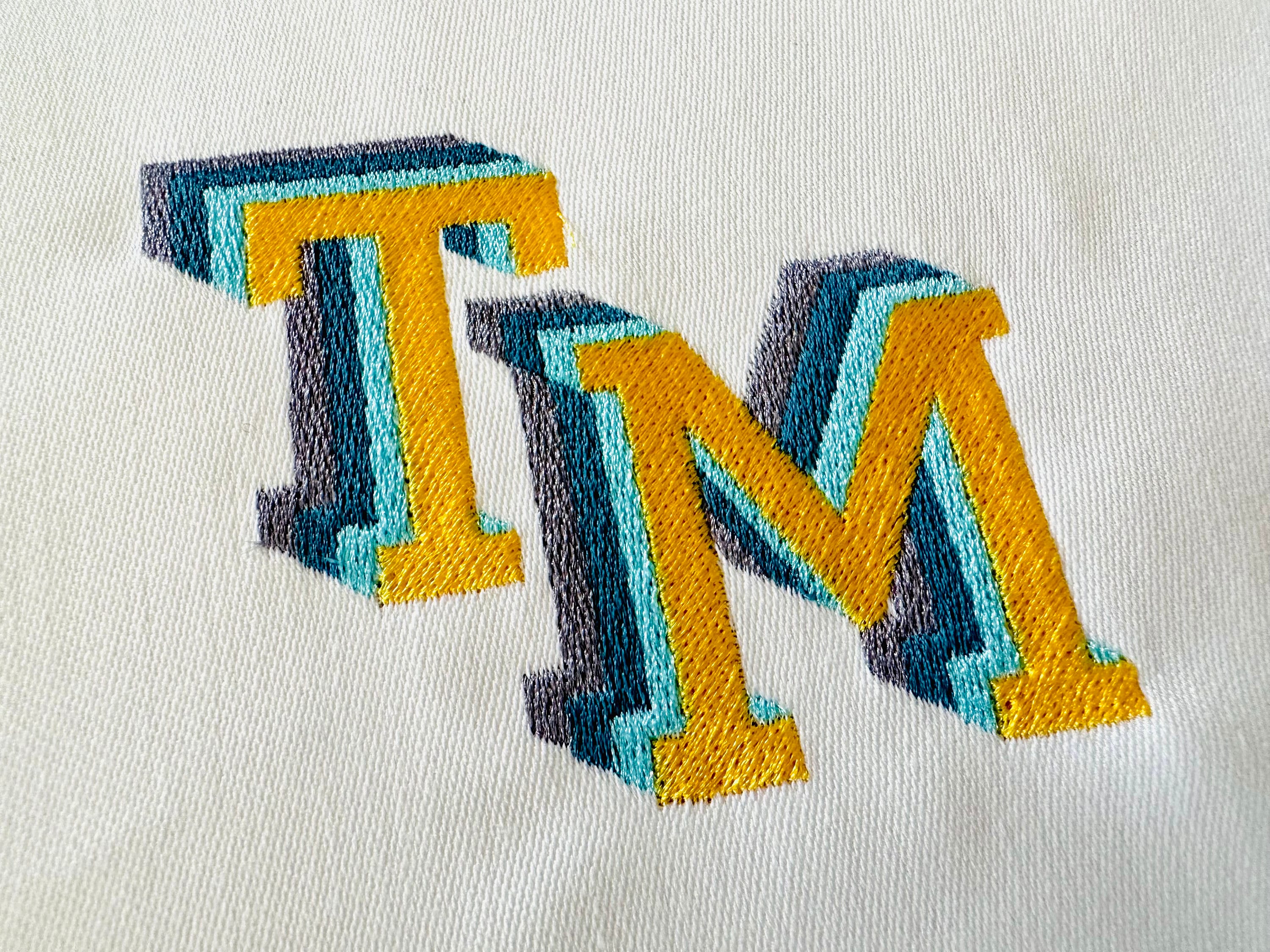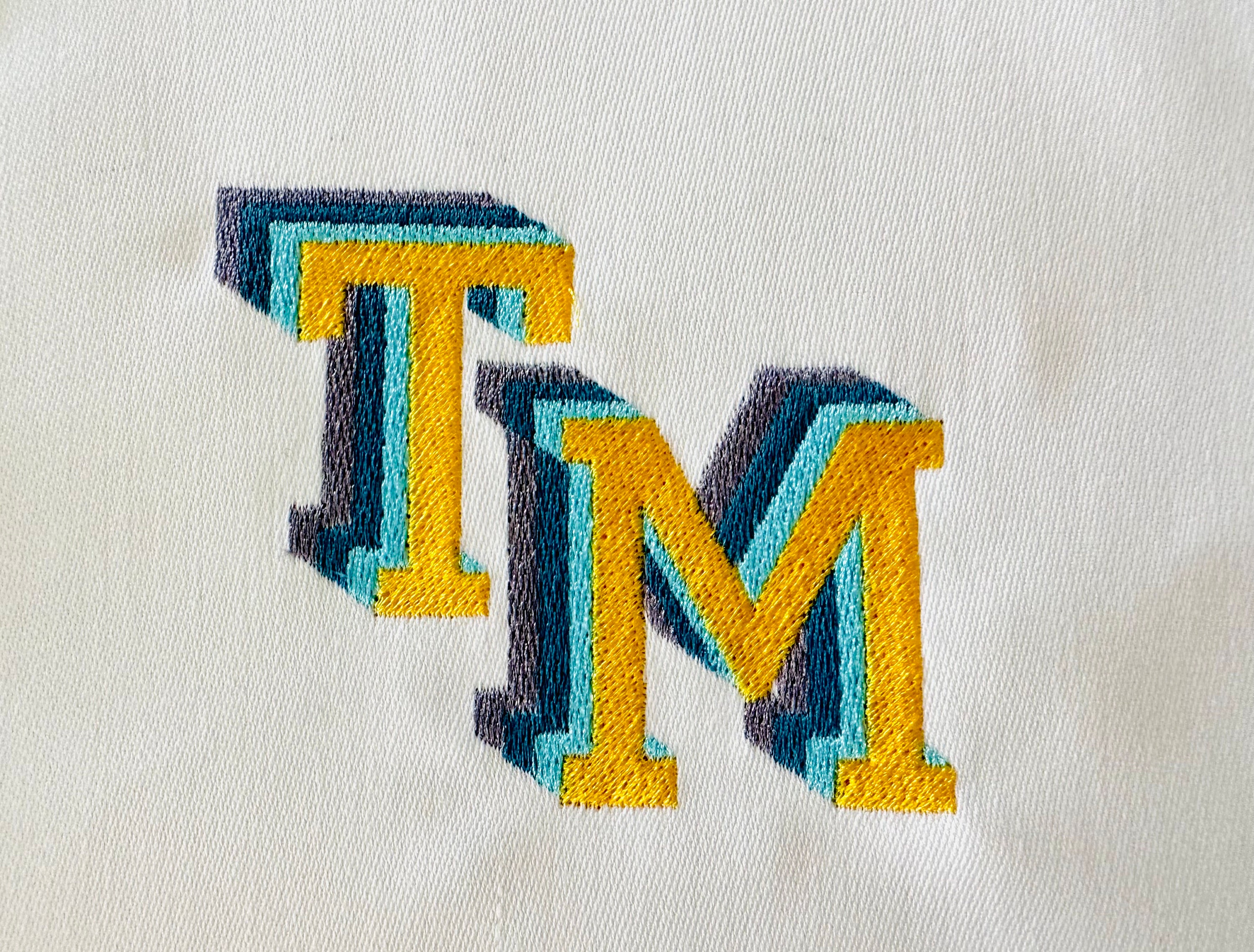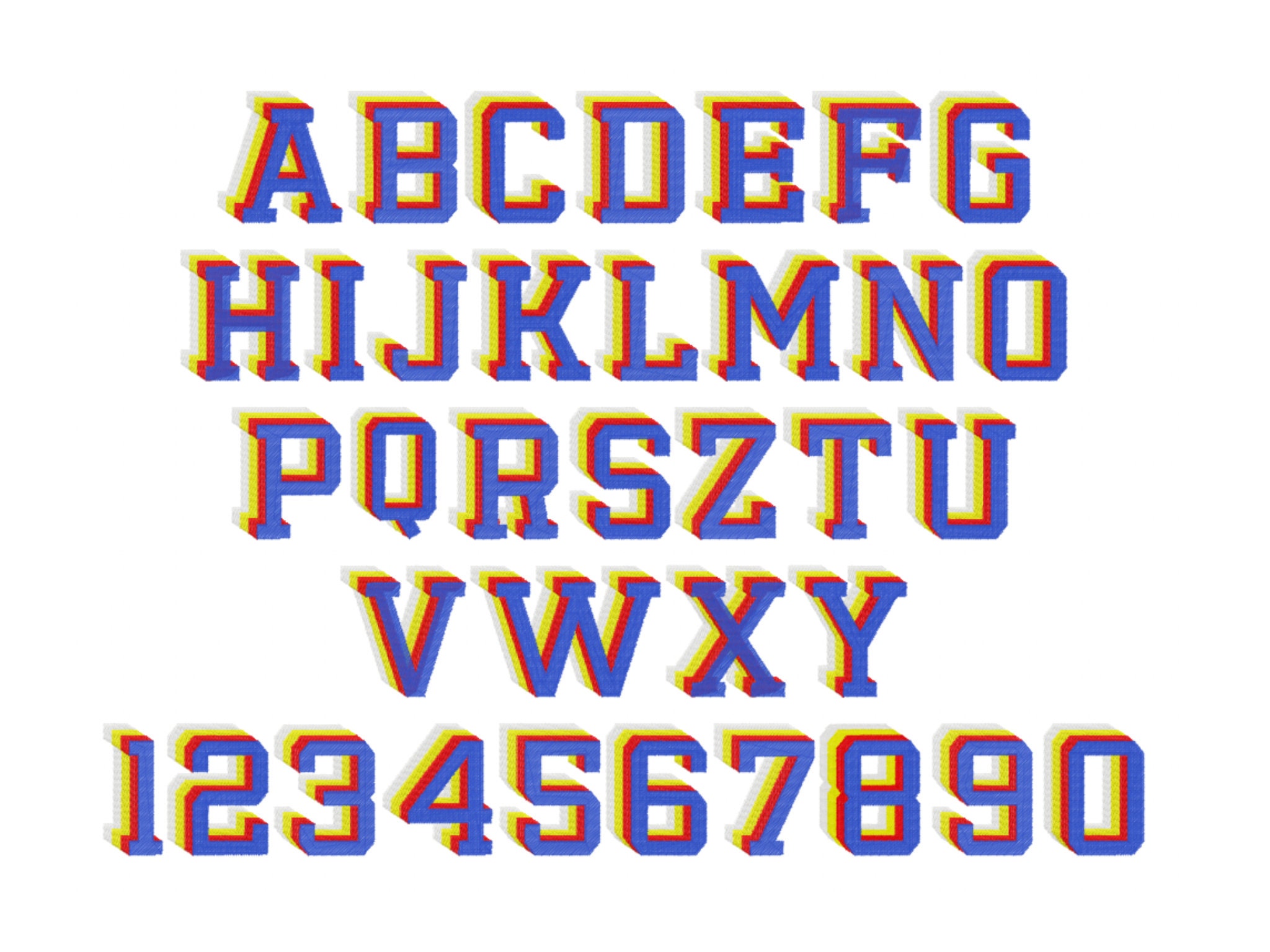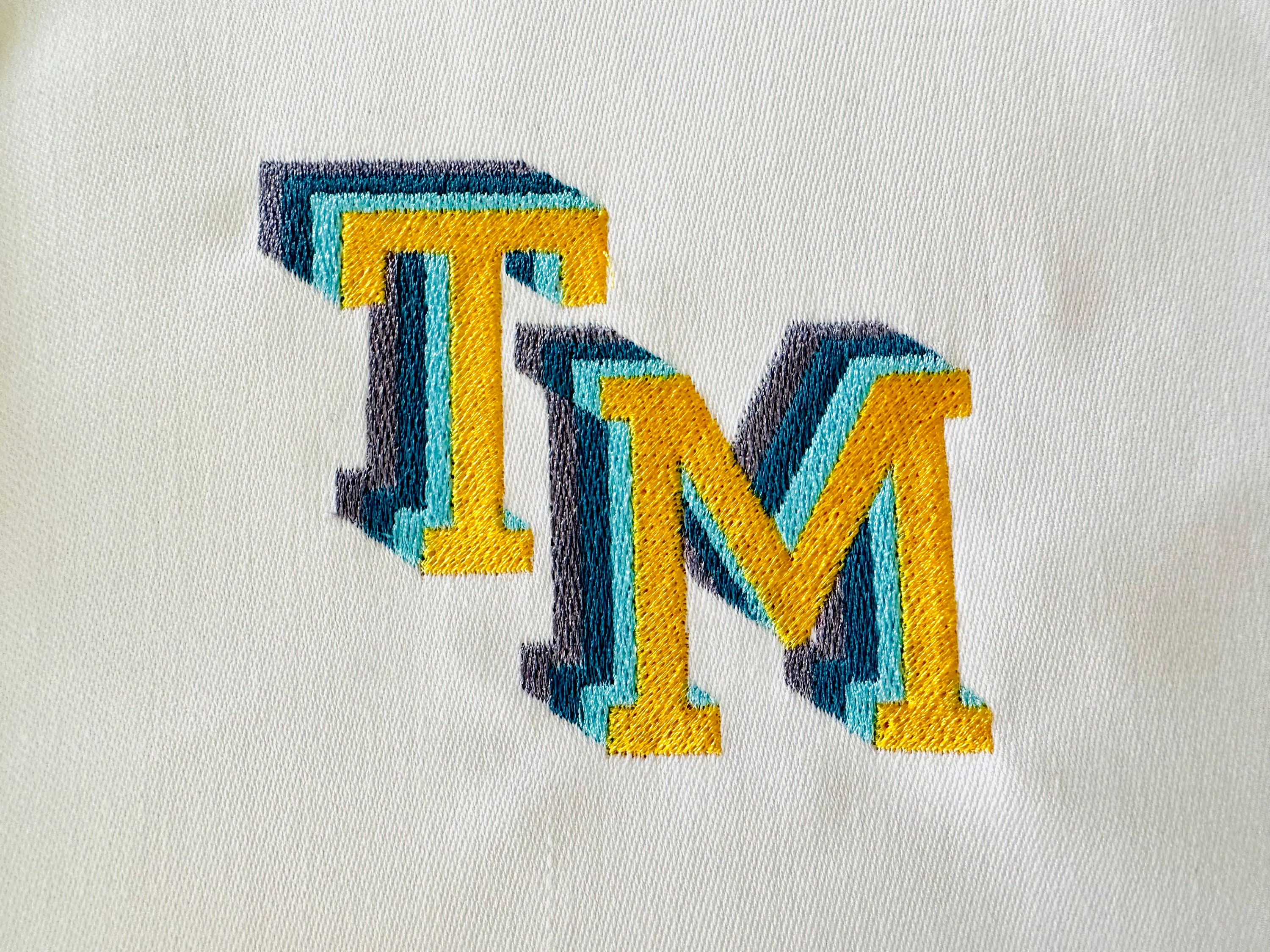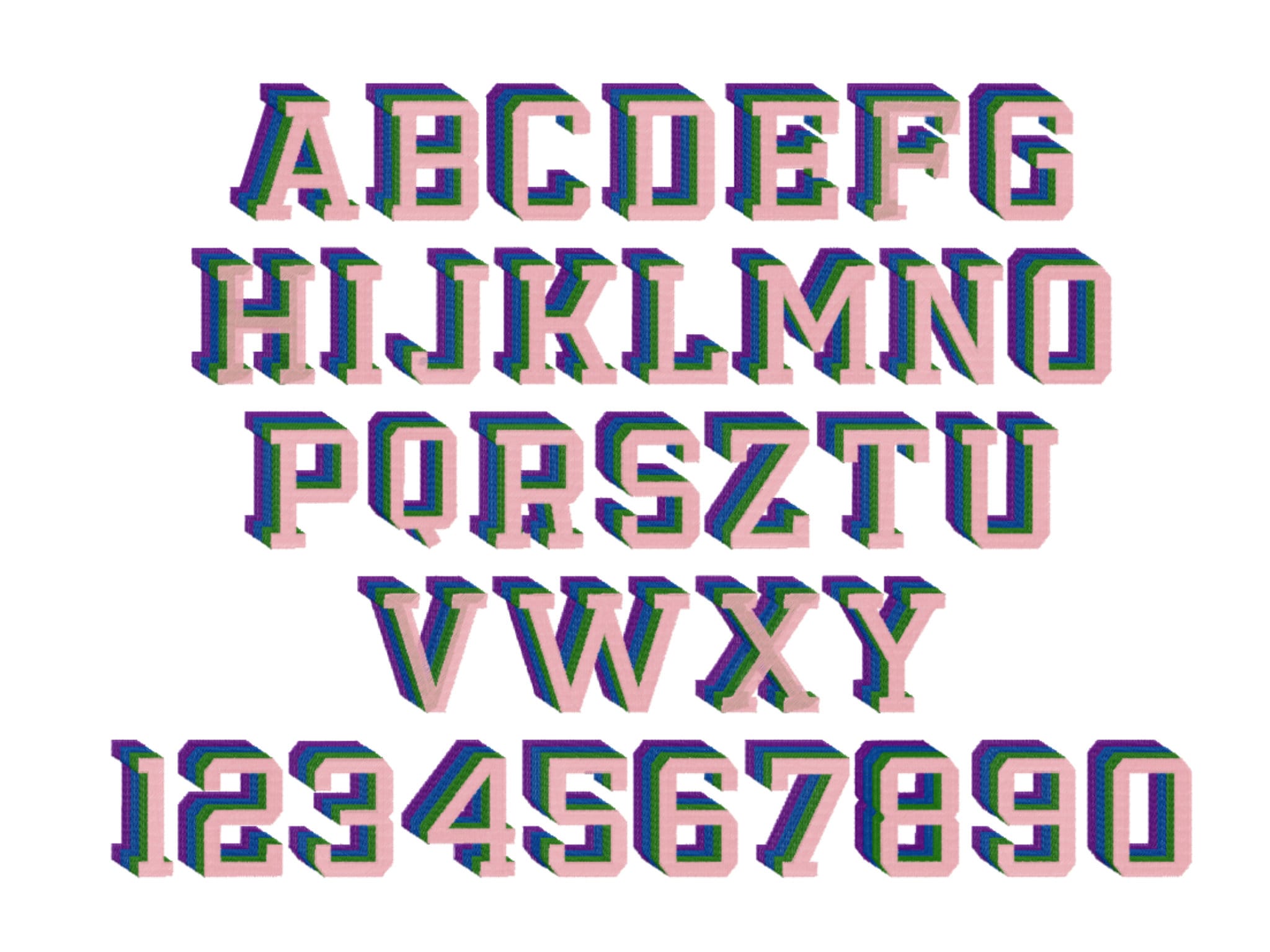
Shadow 4 layers pop art Font Varsity block alphabet fill stitch Shadowed Font machine embroidery designs sport letters numbers with shadow
Whole alphabet A-Z uppercase letters, numbers 0-9.